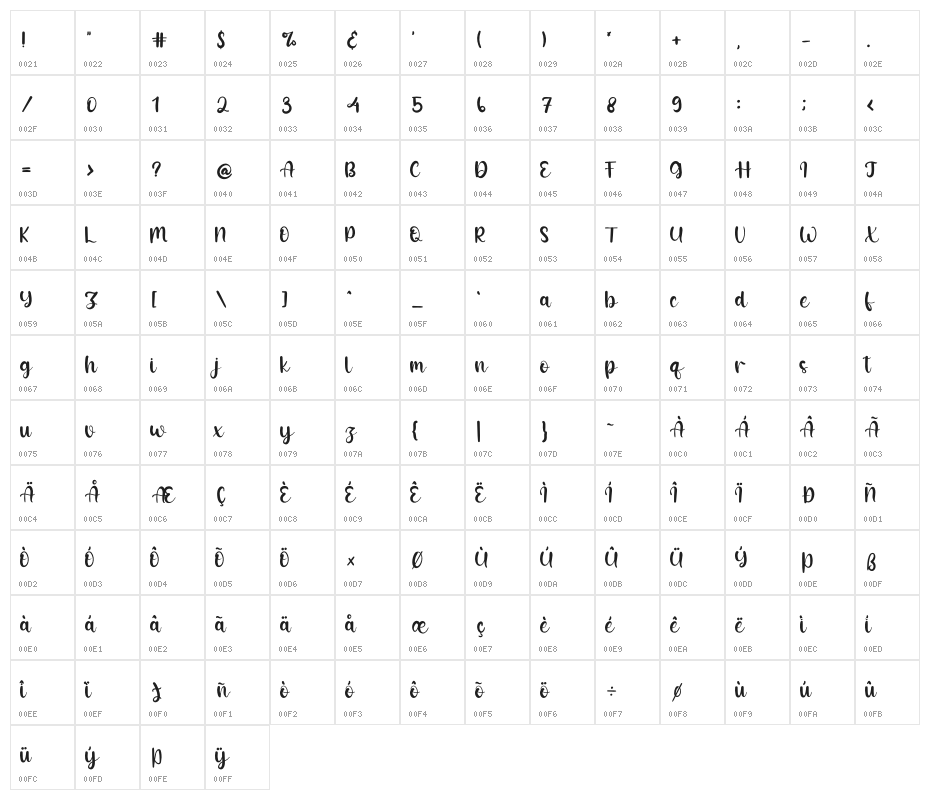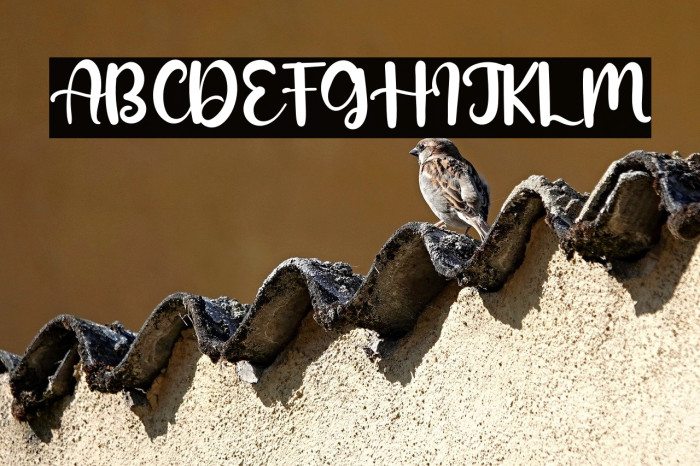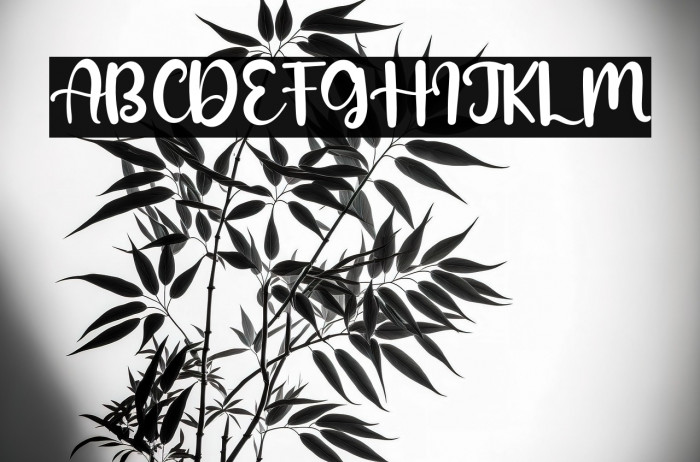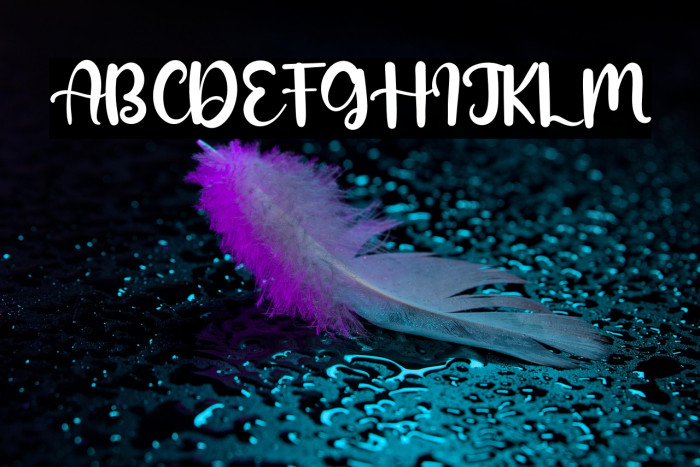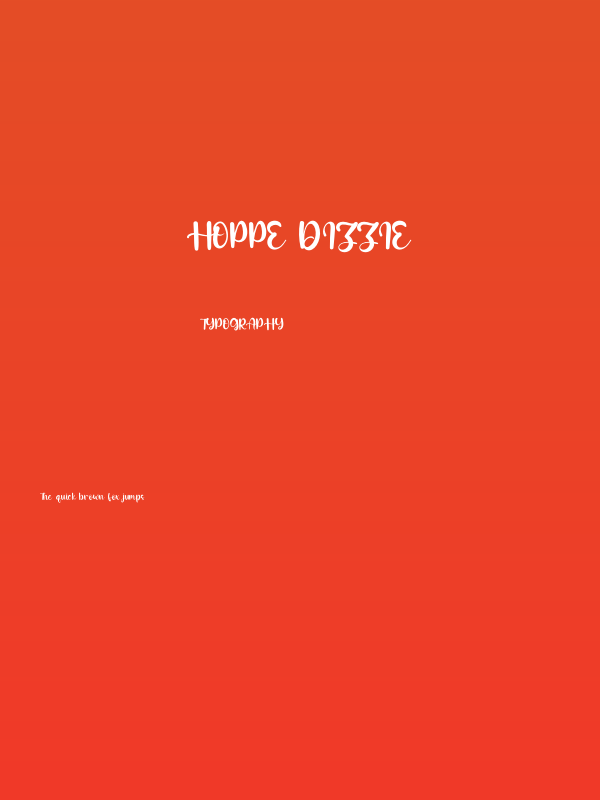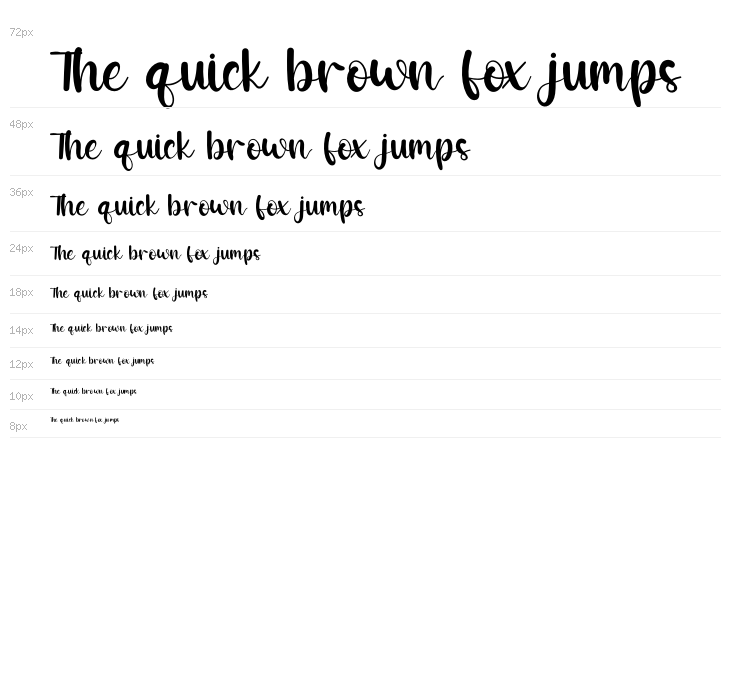
Hoppe Dizzie Font
Hoppe Dizzie Description
This font features a playful and whimsical script style with a handwritten appearance. The characters are bold and have a smooth, flowing quality, giving them a lively and dynamic feel. The uppercase letters are slightly larger and more pronounced, while the lowercase letters maintain a consistent, rounded form. The numbers and special characters are designed to complement the overall style, with a similar boldness and fluidity. This font exudes a sense of creativity and fun, making it suitable for projects that require a personal and informal touch.
| Proposed Projects | Ideal for greeting cards, invitations, playful branding, and social media graphics. |